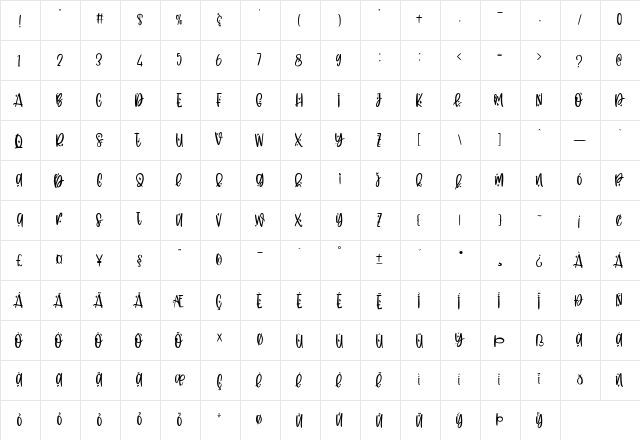
Flying Love Regular
Design Context for Flying Love Typeface
Flying Love is a composed and adaptable typeface that performs quietly and consistently across a wide range of design contexts.